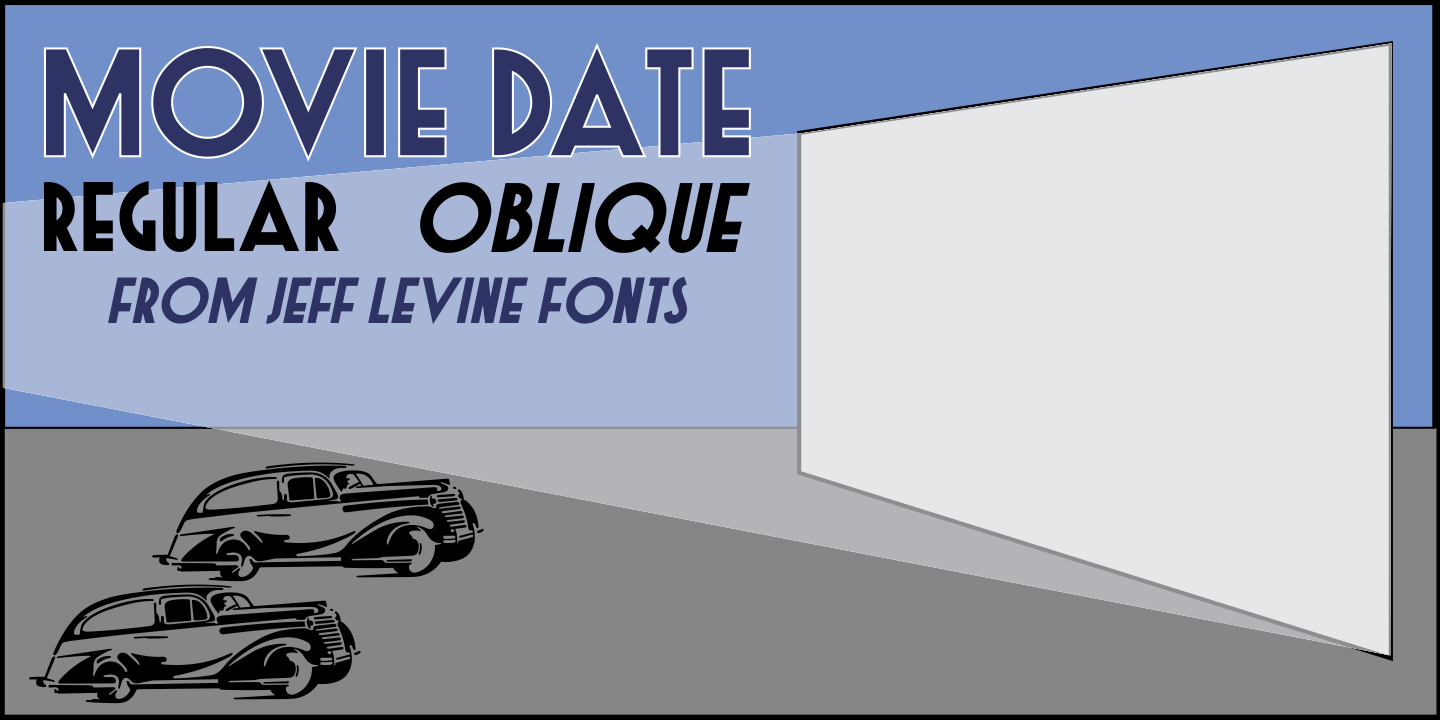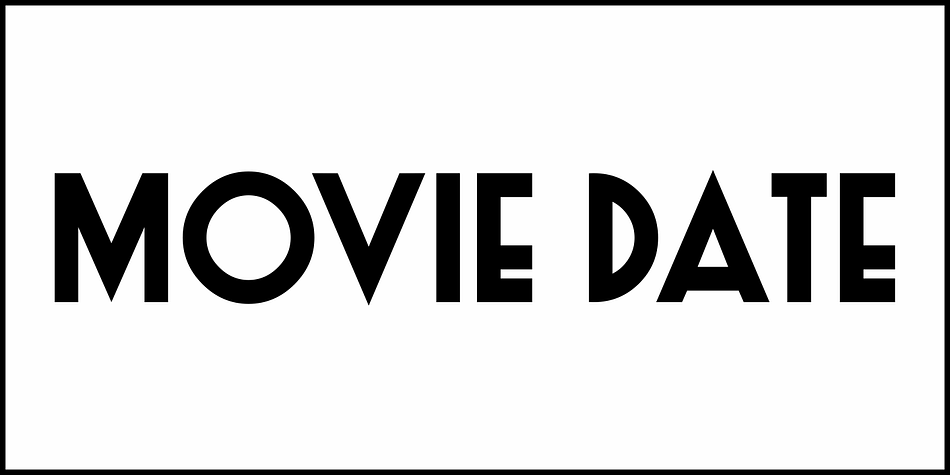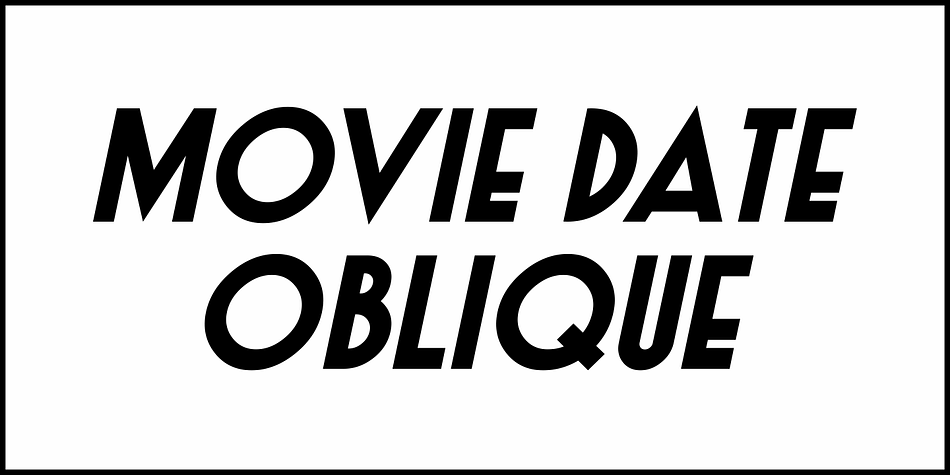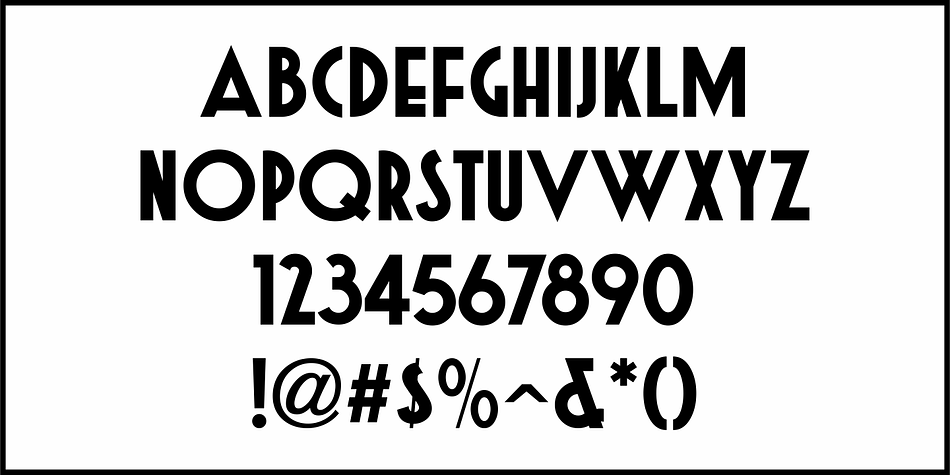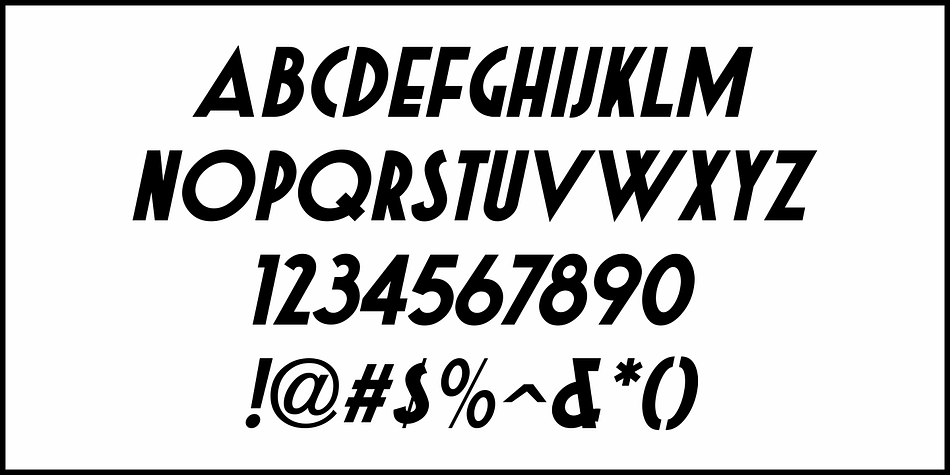
MOVIE DATE JNL
Designed by Jeff Levine, Movie Date JNL is a display sans font family. This typeface has two styles and was published by Jeff Levine Fonts.
The May 7, 1937 issue of the French movie magazine “La Cinématographie Française” contained an ad for a movie comedy entitled “Le Club des Aristocrats” (“The Club of Aristrocrats”).
The film’s title was hand lettered in a bold Art Deco sans serif design, and is now available as Movie Date JNL in both regular and oblique versions.